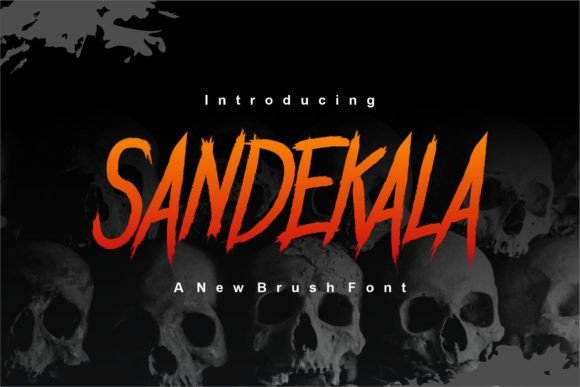
In a digital world saturated with uniformity, Sandekala Font emerges as a defiant beacon of originality, a script font that shatters the mold of convention. Its bold, confident strokes and striking angles evoke a sense of intrigue and drama, captivating the eyes of viewers like a mesmerizing spell.
Sandekala is not merely a font; it's an experience, a journey into the realm of the unconventional. Its carefully crafted characters exude a rare elegance, adding a touch of sophistication to any project, be it a captivating poster, an eye-catching invitation, or a distinctly styled social media post.
With Sandekala as your creative companion, you unlock a world of possibilities, a canvas where your imagination can run wild. This font is a true chameleon, adapting effortlessly to a myriad of styles and themes, from the haunting allure of horror designs to the playful exuberance of fashion campaigns.
Sandekala is more than just a collection of letters; it's a gateway to a realm where creativity flourishes and boundaries dissolve. Its unique charm and undeniable versatility make it the perfect choice for those seeking to make a statement, to leave an indelible mark on the hearts and minds of their audience.
For the modern resume seeker, Sandekala is an indispensable tool, a secret weapon that elevates your application above the mundane and ordinary. Its distinct personality adds a touch of intrigue and professionalism, ensuring your resume stands out from the crowd, capturing the attention of potential employers.